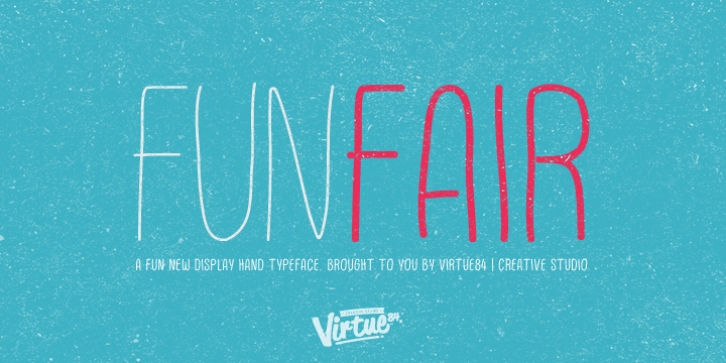
This fun sans-hand typeface gives your designs and layouts a personal touch that leaves a smile. FUNFAIR has two weights each with italics.
FunFair has tall letters and tight kerning to give a natural hand written style. It’s great for posters, cards and headings but also versatile enough for many kinds of typographic layouts.